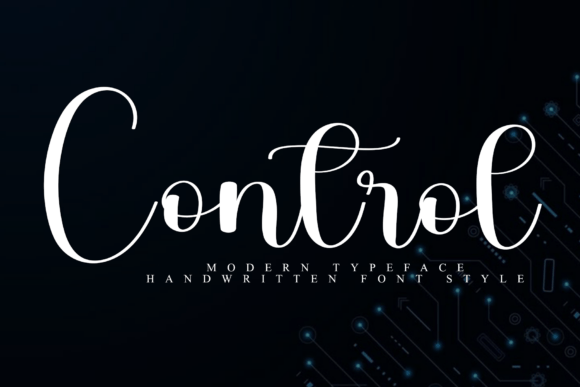
Introducing Control Font: A Unique and Versatile Typeface for Creative Projects
In the world of typography, fonts play a crucial role in conveying messages, expressing emotions, and creating visual identities. Among the numerous fonts available, Control Font stands out for its soft, unique touch and distinctive strokes, making it an excellent choice for various design projects, crafts, and creative works. In this article, we’ll explore the features, benefits, and applications of Control Font, highlighting its potential to elevate your designs and captivate diverse audiences.
The Distinctive Characteristics of Control Font
Control Font boasts a special character that sets it apart from other typefaces. Its soft and unique touch gives it a distinctive feel, making it perfect for designers seeking to add a personal touch to their creations. The font’s strokes are carefully crafted to provide a sense of elegance and sophistication, while maintaining a natural and approachable look.
One of the notable features of Control Font is its versatility. With a wide range of characters, this font is suitable for various design projects, from logos and branding materials to posters, flyers, and digital content. Its unique character set ensures that your designs will stand out and leave a lasting impression on your audience.
Applications of Control Font
The font’s natural style makes it ideal for a wide range of products, including:
- Logos and branding materials
- Posters, flyers, and brochures
- Digital content, such as social media graphics and blog posts
- Crafts, like handmade cards and invitations
- Artistic projects, including illustrations and paintings
The Benefits of Using Control Font
Control Font offers several benefits that make it an attractive choice for designers and creatives:
- Unique and distinctive look: Control Font’s soft and unique touch sets it apart from other fonts, ensuring your designs will stand out.
- Versatility: With a wide range of characters, this font is suitable for various design projects and applications.
- Ease of use: The font’s natural style makes it easy to integrate into your designs, allowing you to focus on your creative process.
Tips for Using Control Font Effectively
To get the most out of Control Font, consider the following tips:
- Experiment with font sizes: Control Font looks great in various sizes, from large headings to smaller body text.
- Pair it with complementary fonts: Combine Control Font with other fonts to create visually appealing contrast and hierarchy.
- Use it consistently: Establish a consistent visual identity by using Control Font across your designs and branding materials.
Control Font is a beautiful and eye-catching typeface that offers a unique and versatile solution for designers, artists, and crafters. Its distinctive strokes, natural style, and compatibility with various applications make it an excellent choice for a wide range of creative projects. By incorporating Control Font into your designs, you’ll be able to create visually appealing and engaging content that resonates with diverse audiences.